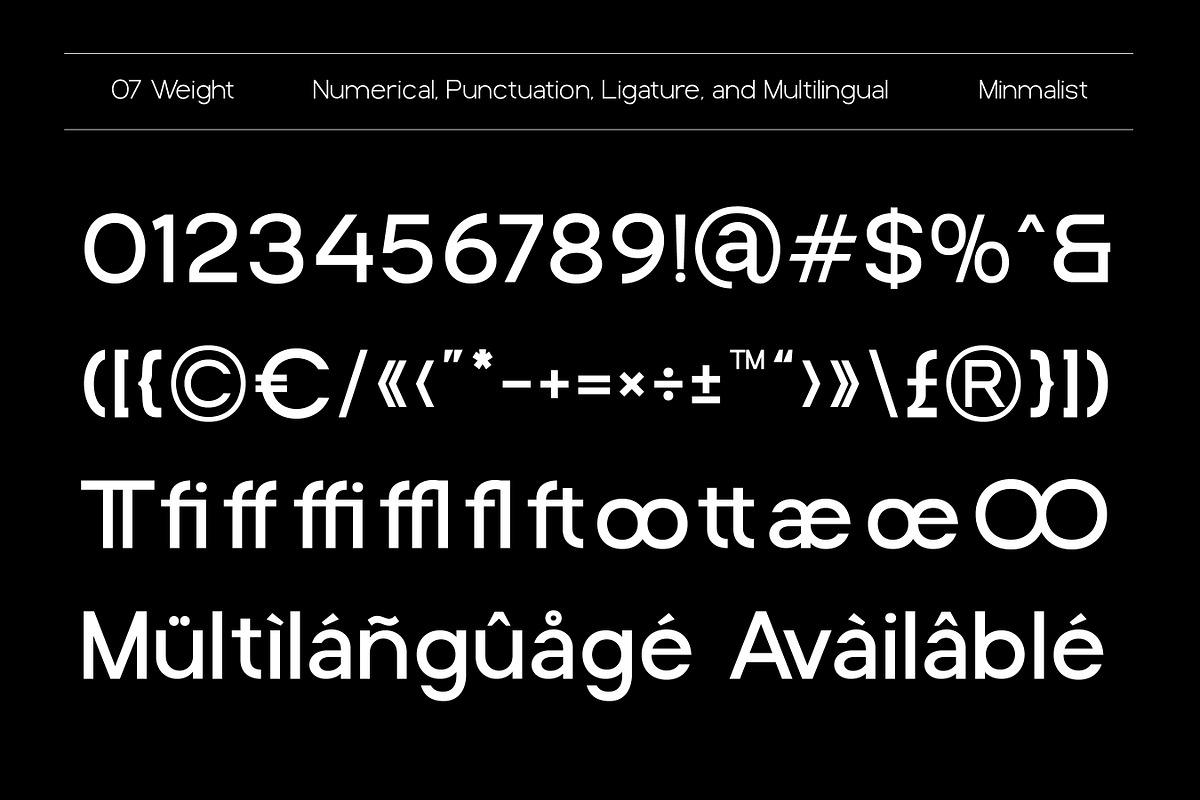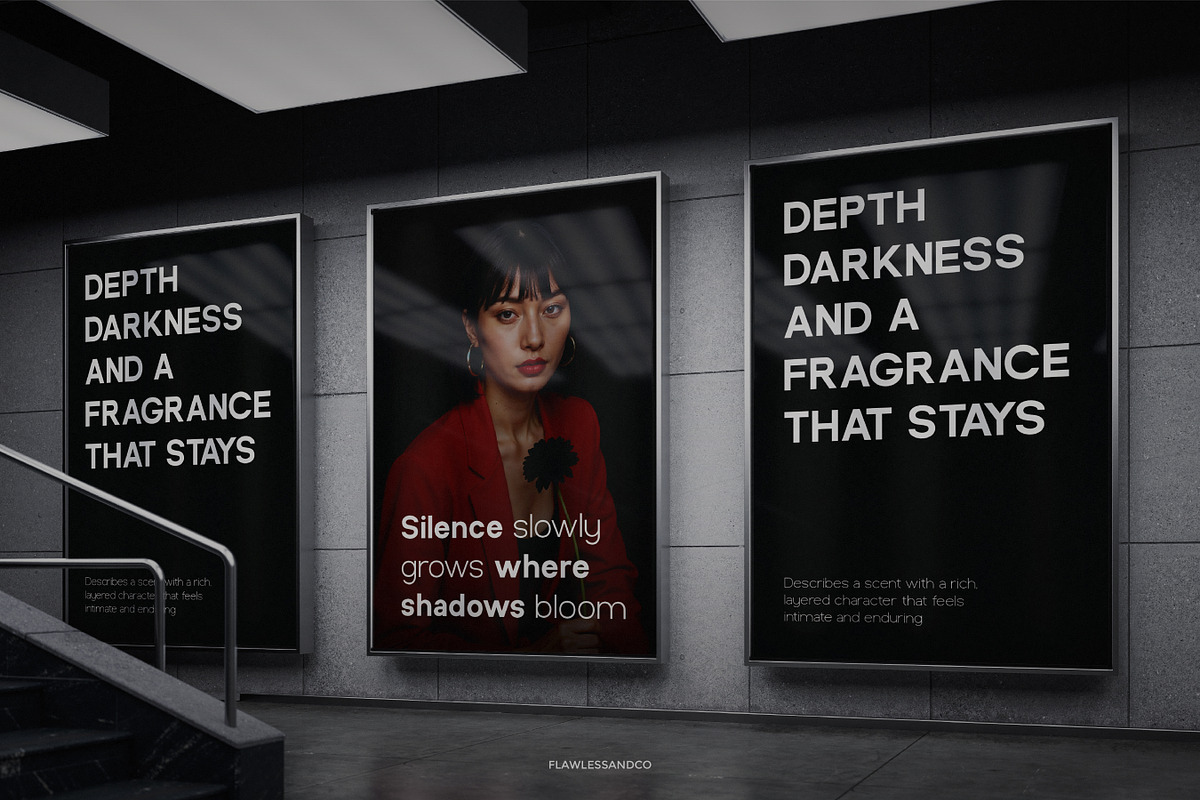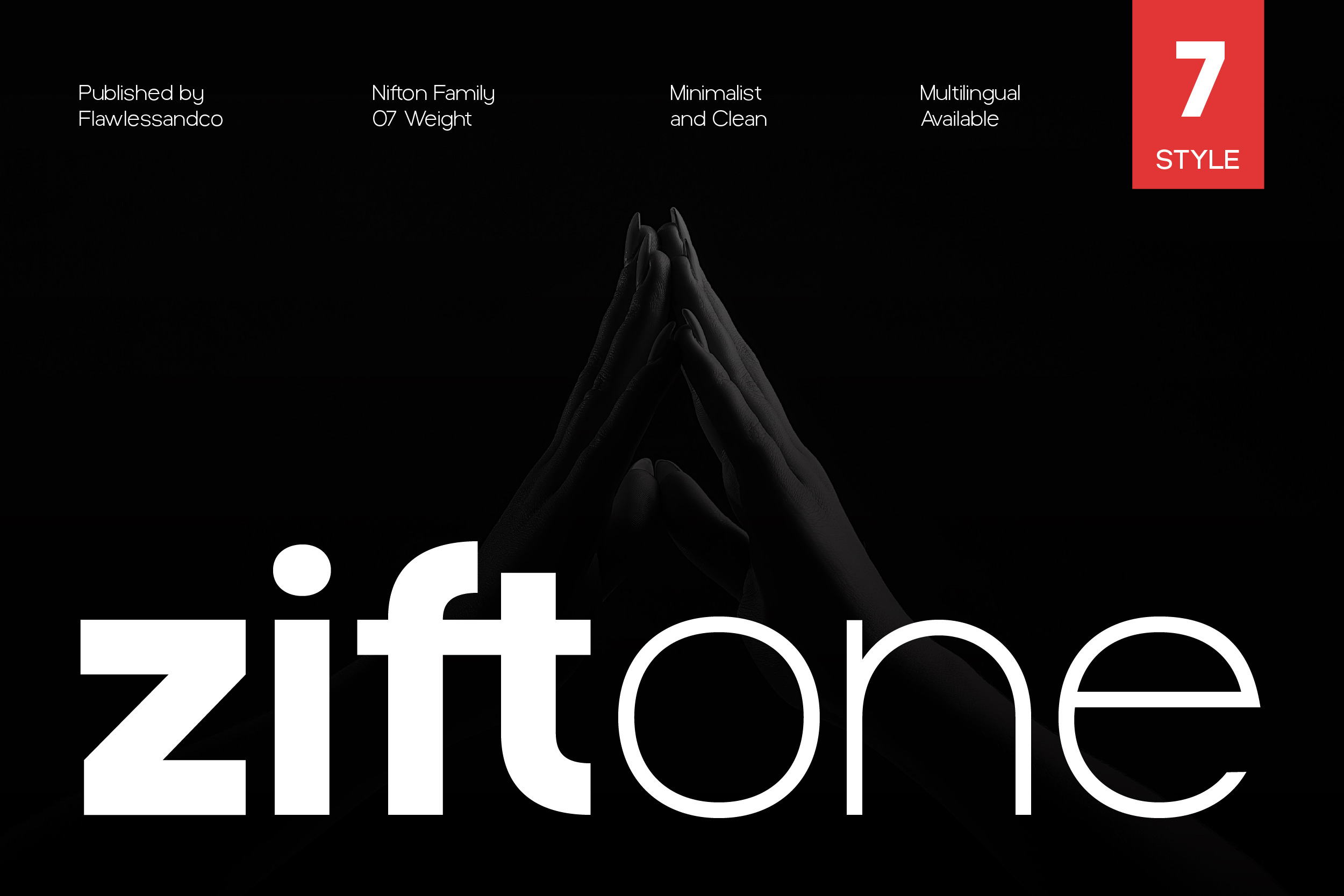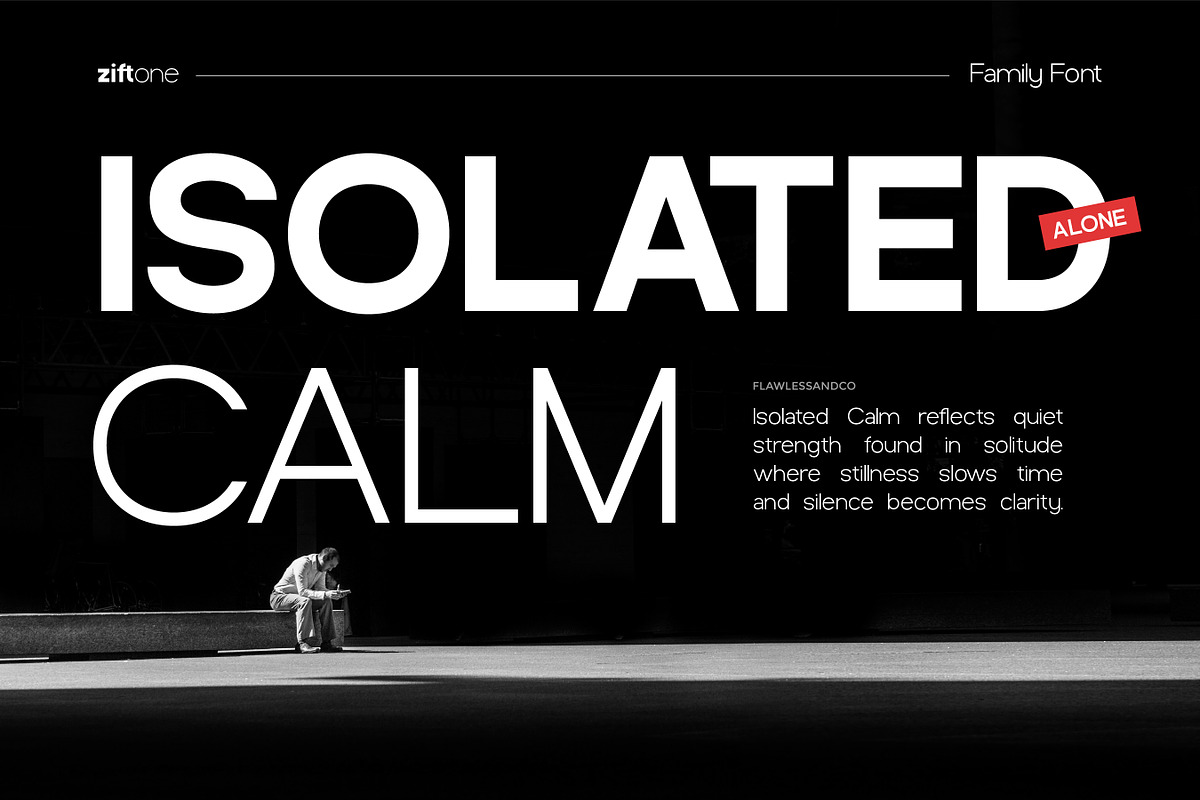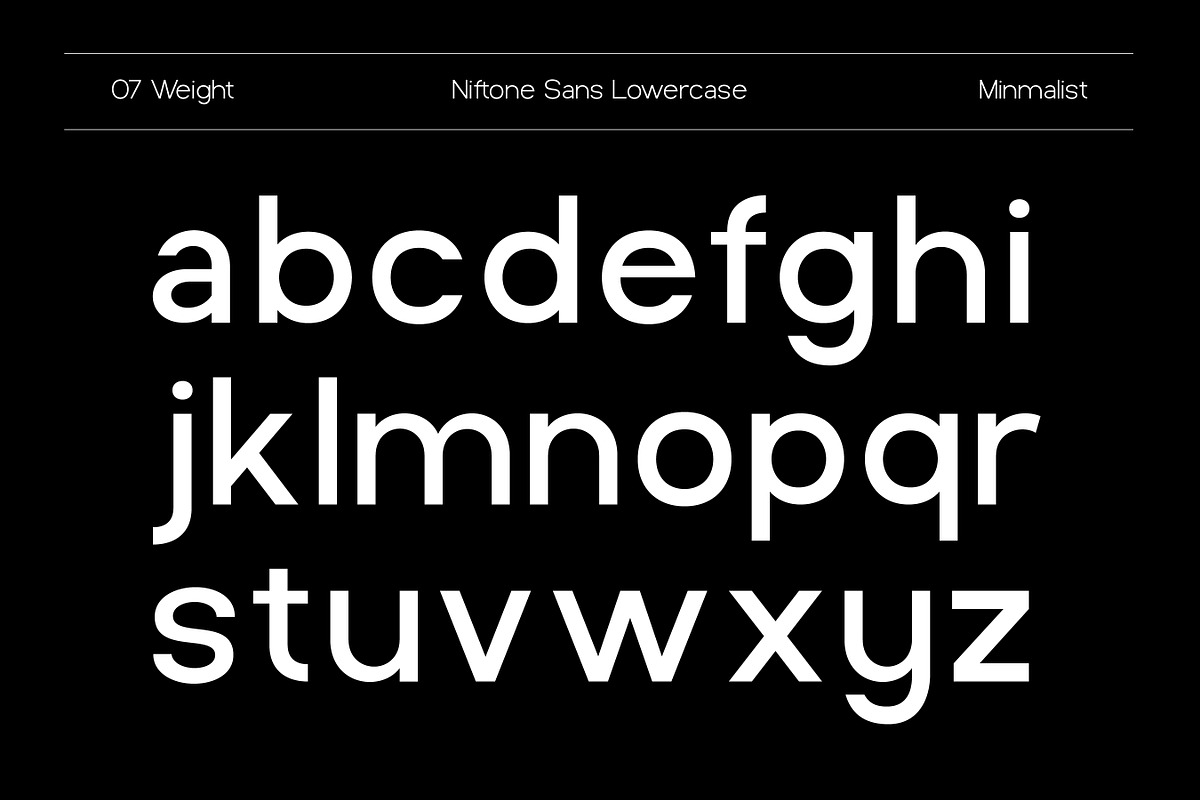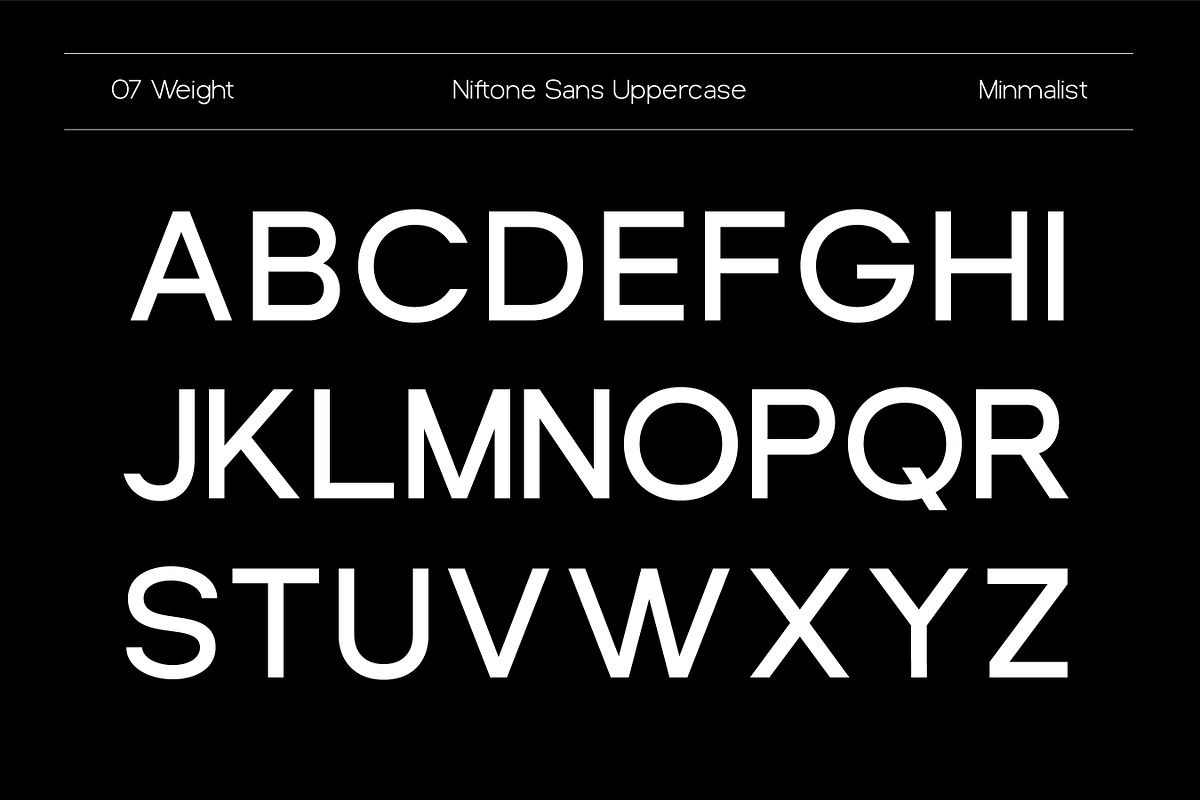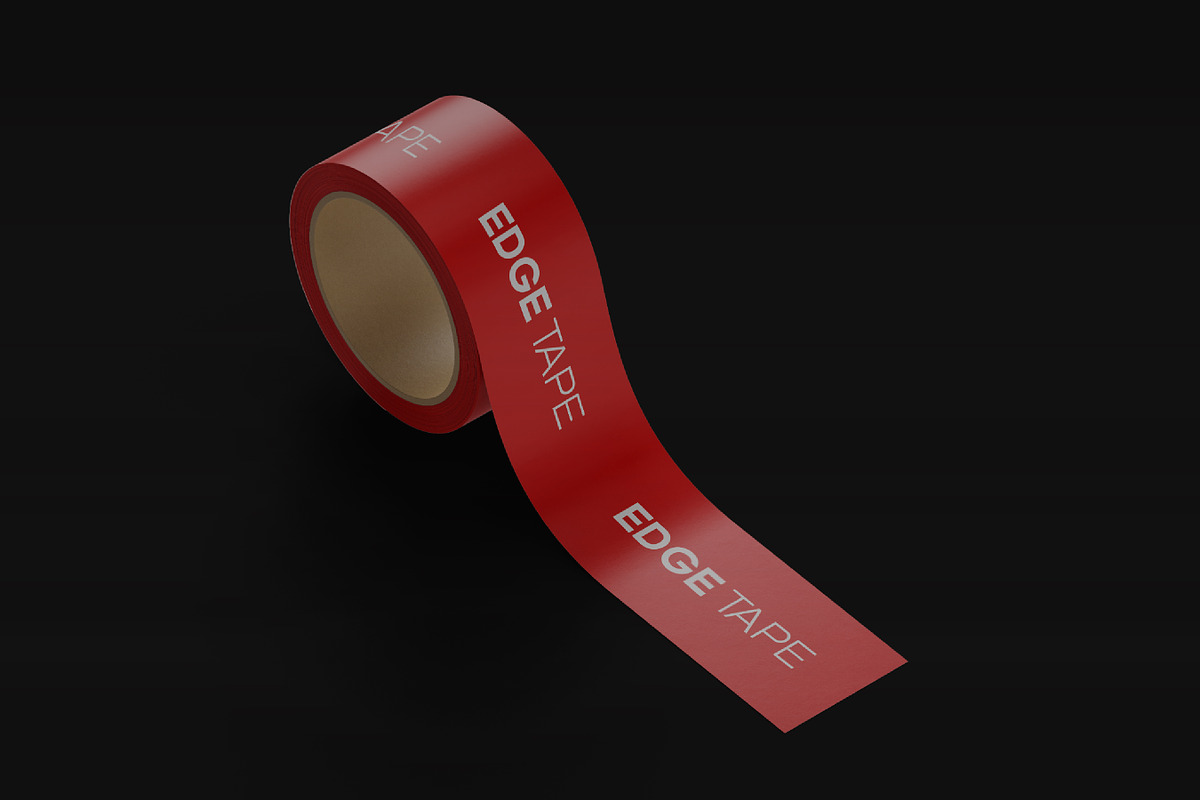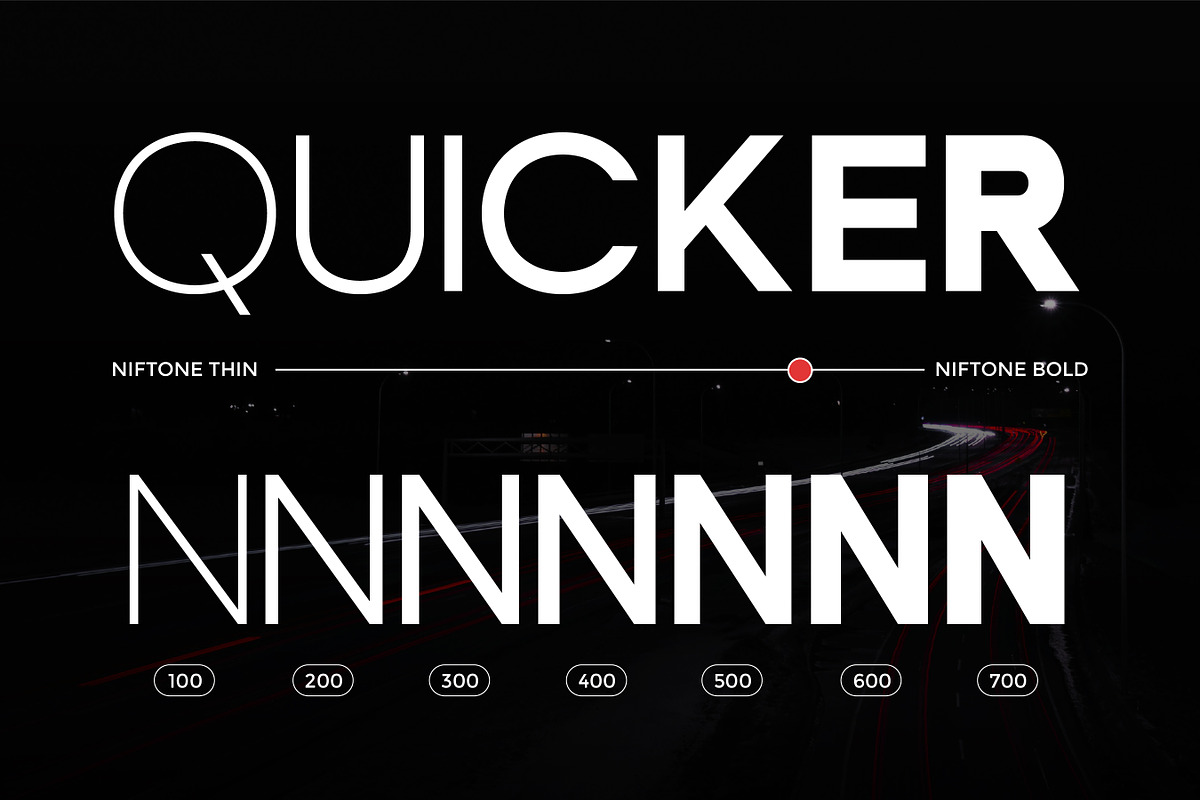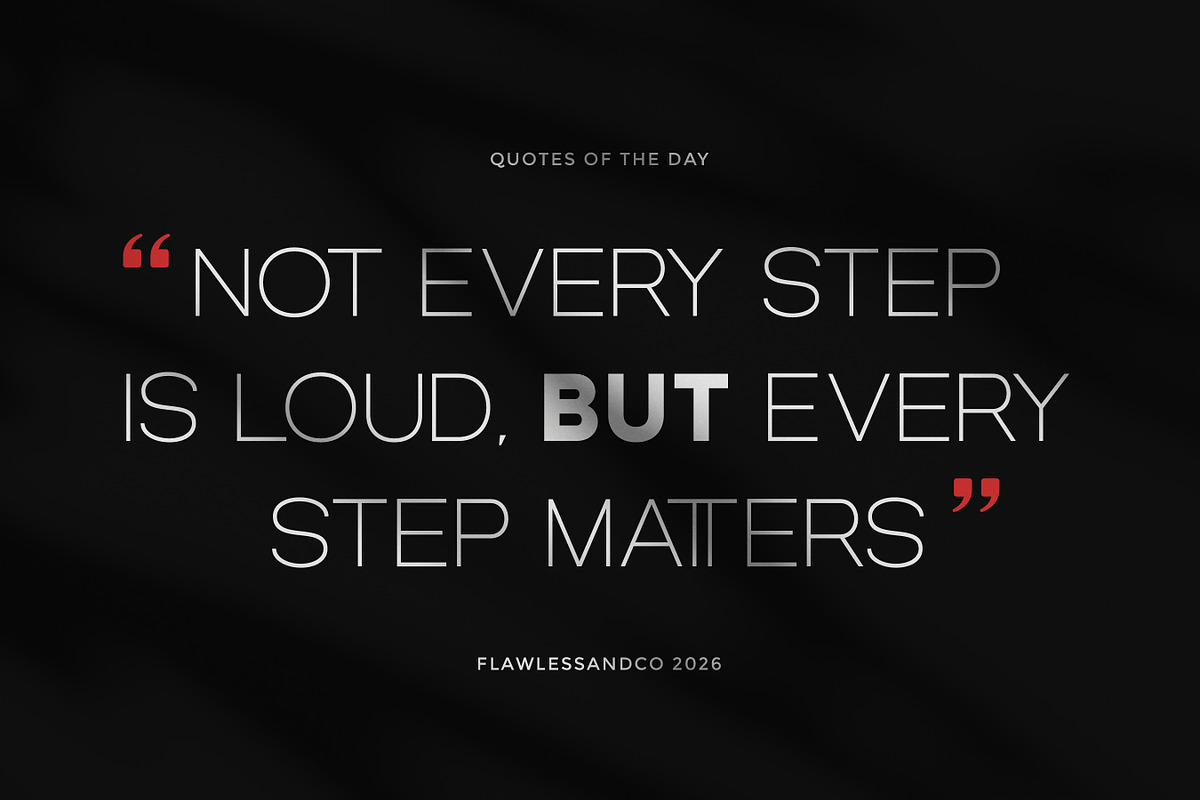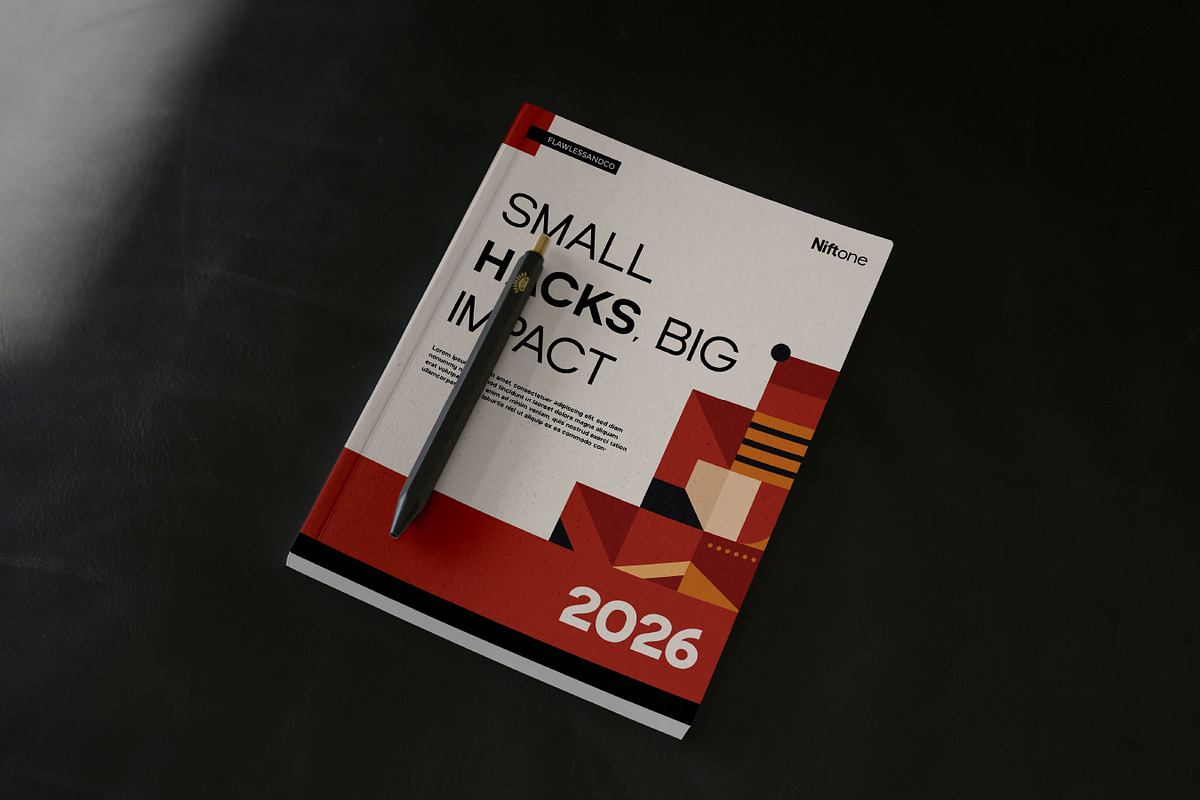
Ziftone - Minimalist Sans Serif Font
Ziftone - Minimalist Sans Serif Family Font
Ziftone is a clean and modern minimalist sans serif family font designed to deliver clarity, balance, and refined simplicity. With its precise geometry and well-proportioned letterforms, Ziftone creates a sleek and professional appearance that works effortlessly across a wide range of design applications. Its versatile family structure allows for smooth hierarchy, making it suitable for both striking headlines and highly readable body text. Whether you're building a brand identity or designing digital experiences, Ziftone offers a timeless and elegant typographic solution.
Who Should Use Ziftone?
Ziftone is perfect for designers, creatives, and brands who appreciate clean aesthetics and modern functionality. It’s especially suitable for those working on minimalist branding, corporate identities, and digital products that require clarity and consistency.
Suitable For:
- Minimalist and modern branding
- Corporate and professional logos
- Website and app UI design
- Editorial layouts and publications
- Packaging and product design
- Business presentations and marketing materials
- Social media graphics and digital branding
- Contemporary typography projects